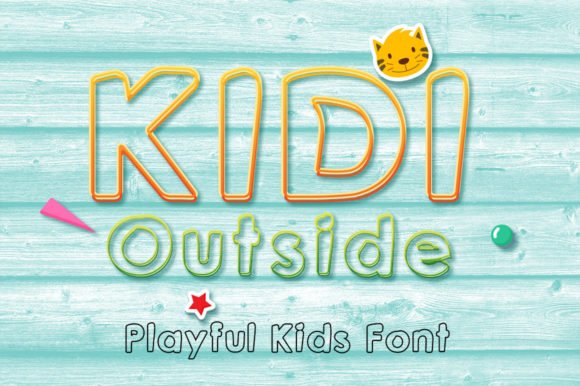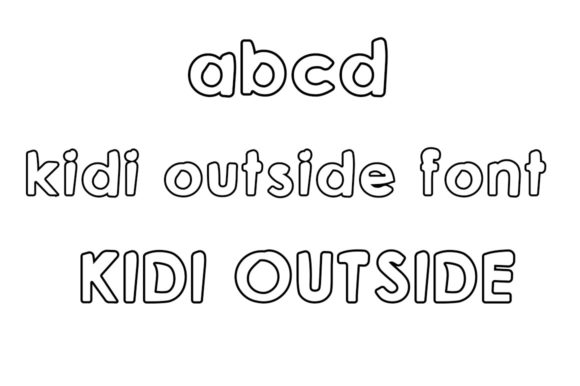
Unleash Your Creativity with Kidi Outside Font
Have you ever found yourself stuck in a creative rut, staring at a blank page, wondering where to begin? That’s when the perfect font can be a game-changer. For designers looking to add a touch of whimsy and playfulness to their work, Kidi Outside Font is an excellent choice. This fun and friendly outlined display font is designed to bring a smile to your audience’s face.
Kidi Outside Font is perfect for a wide range of projects, from cartoon-related designs and children’s games to quotes, titles, and brand names. Its versatility makes it an invaluable asset for designers looking to add a unique touch to their creations. With its outlined design, this font is sure to stand out and leave a lasting impression.
Kidi Outside Font Key Features
- Unique Characteristics: The font features a unique, playful design with rounded edges and smooth curves, making it perfect for creative and informal projects.
Kidi Outside Font Review
Overall, I found the Kidi Outside Font to be a fun and quirky addition to any design project. The whimsical feel ✨ of the font makes it perfect for branding, advertising, and even editorial content. The font’s versatility allows it to be used in a variety of contexts, from modern to playful.
The wide range of weights ✨ and styles available within the font make it easy to create a cohesive visual identity. The font’s unique characteristics, such as the rounded edges and soft curves, add a touch of sophistication and elegance to any design.
One potential drawback of the Kidi Outside Font is its limited legibility ⚠️ at smaller font sizes. While the font is perfect for headings and titles, it may not be the best choice for body text or large blocks of text.
Additionally, the font’s overuse of certain letterforms ⚠️ may lead to a lack of clarity in certain situations. This can be mitigated by using the font in conjunction with other typography elements, but it’s something to be aware of when designing with Kidi Outside.
Overall, I would recommend the Kidi Outside Font to designers looking for a unique and playful addition to their toolkit. While it may have some limitations, the font’s strengths far outweigh its weaknesses, making it a valuable asset for any design project.
- Pros:
- Whimsical feel
- Wide range of weights and styles
- Unique characteristics
- Cons:
- Limited legibility at smaller font sizes
- Overuse of certain letterforms
Tips for Getting the Most Out of Kidi Outside Font
Here are some tips to get the most out of Kidi Outside Font:
- Experiment with different font sizes and styles.
- Combine Kidi Outside Font with other fonts for a unique look.
- Use it for headings and titles to add a touch of whimsy.
Kidi Outside Font is perfect for:
- Children’s book covers and illustrations.
- Playful branding and marketing materials.
- Fun and creative presentations and documents.
Alternatives to Kidi Outside Font
Great Vibes Font is a modern, handwritten font perfect for creating a casual and friendly atmosphere. It’s ideal for use in headings, quotes, or titles where a touch of personality is needed. Compared to Kidi Outside Font, Great Vibes has a more rounded and fluid feel, making it suitable for projects that require a softer, more approachable tone.
Pacifico Font is a beautiful, elegant script font inspired by the Pacific coast. It’s perfect for use in branding, invitations, or any project that requires a touch of sophistication. Compared to Kidi Outside Font, Pacifico has a more refined and polished feel, making it suitable for projects that require a high level of professionalism.